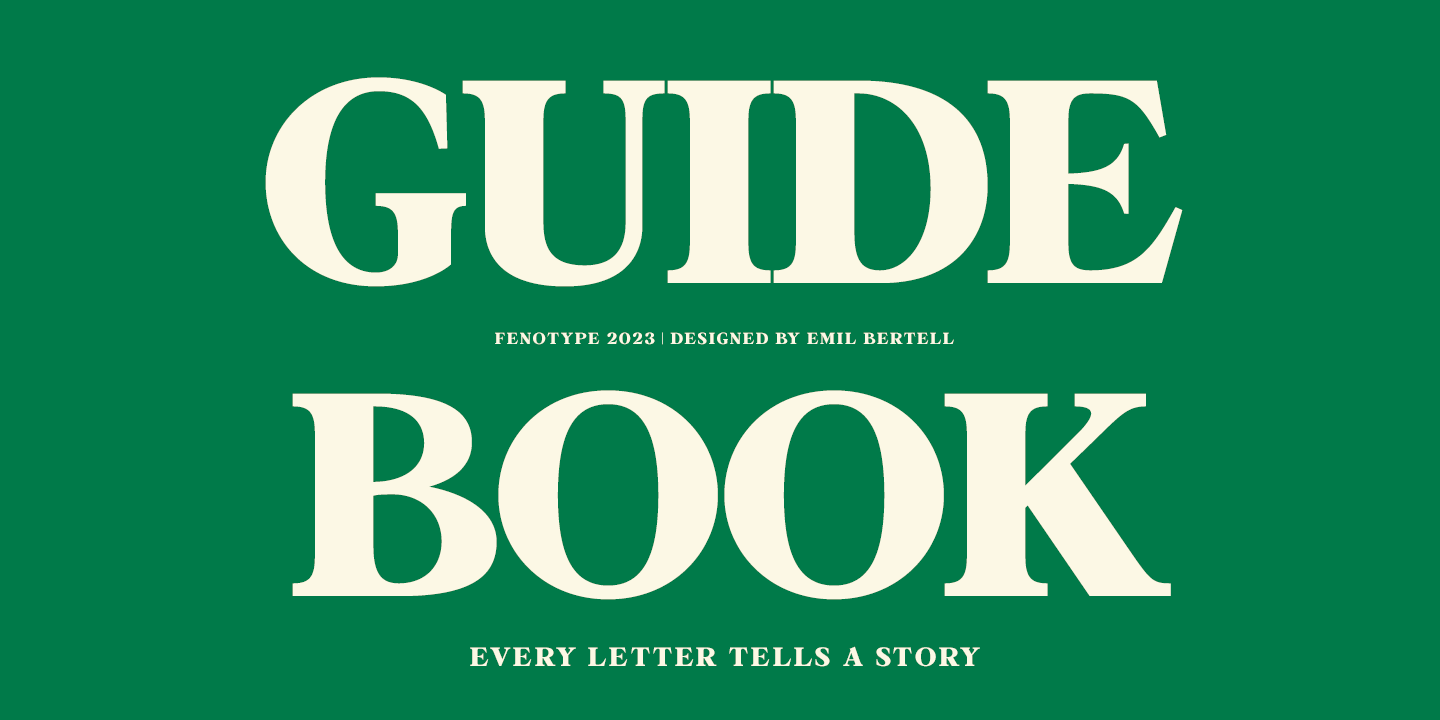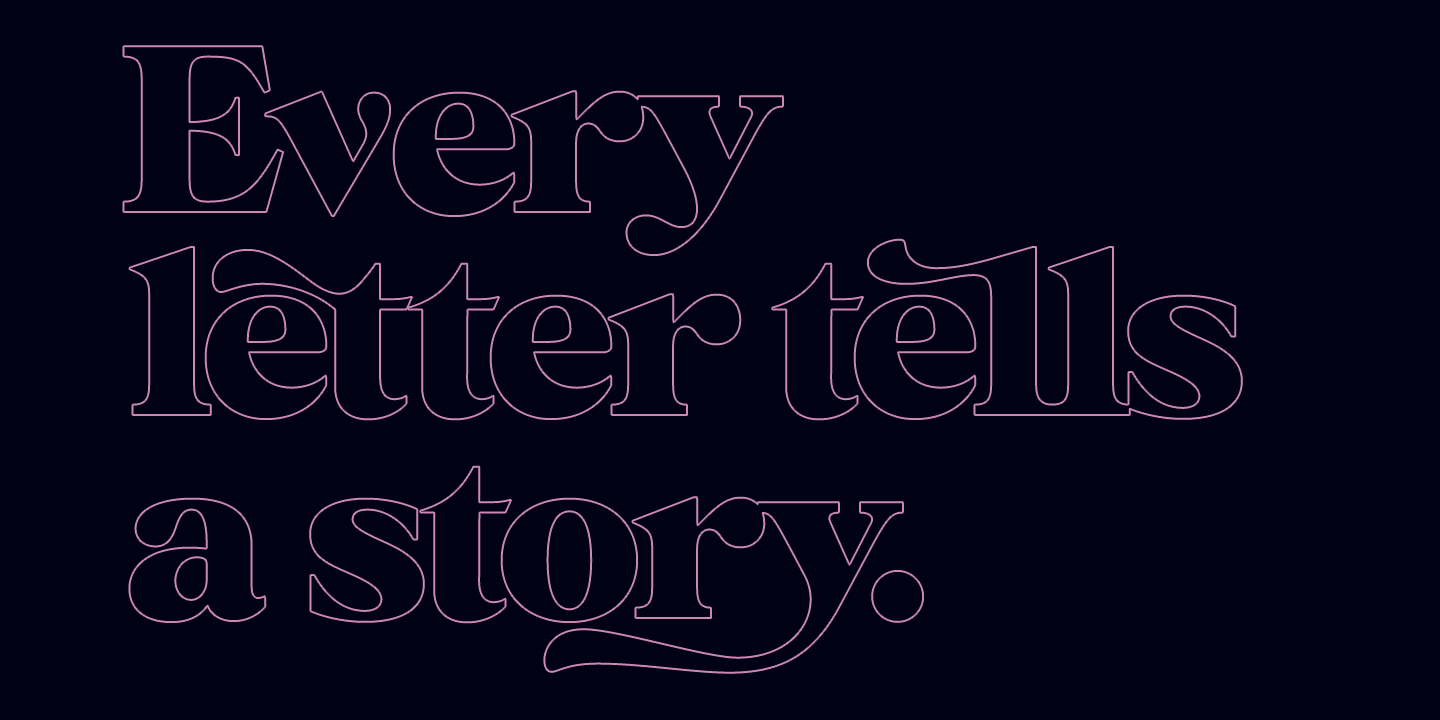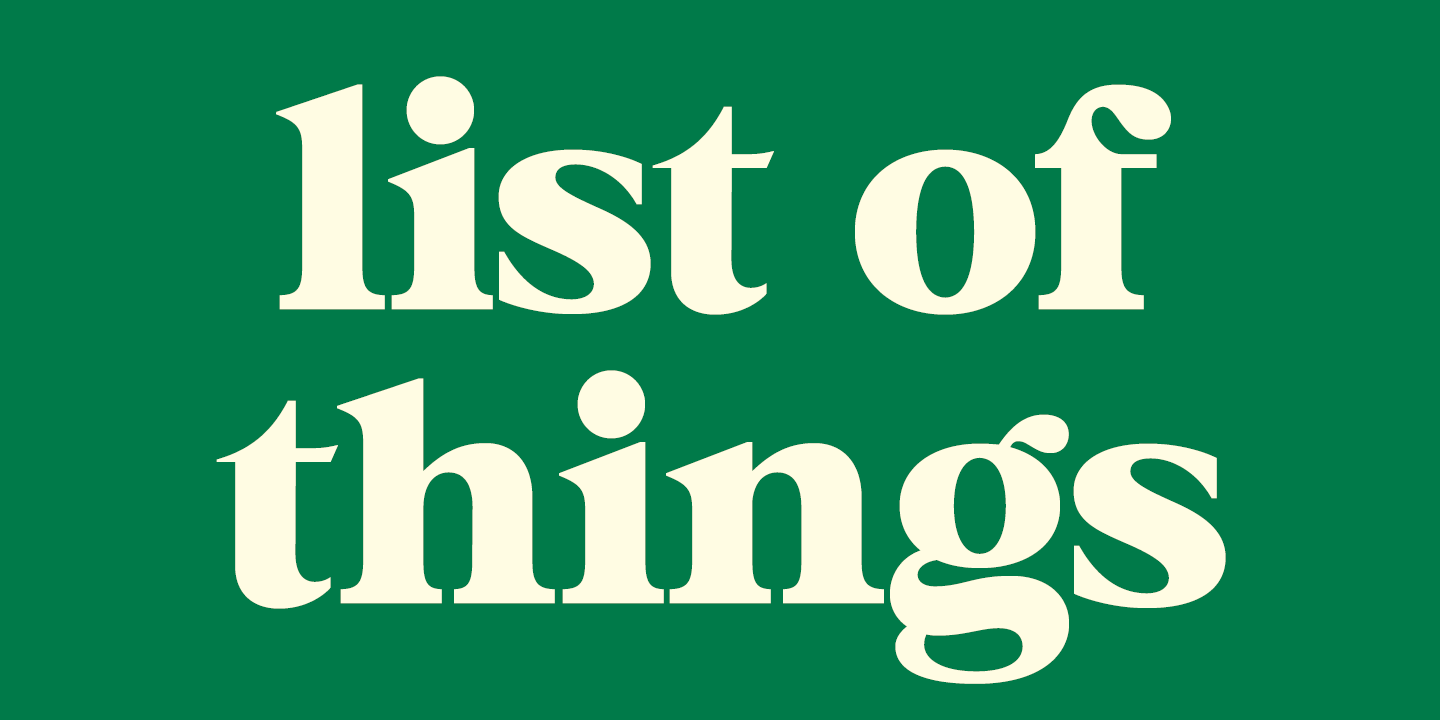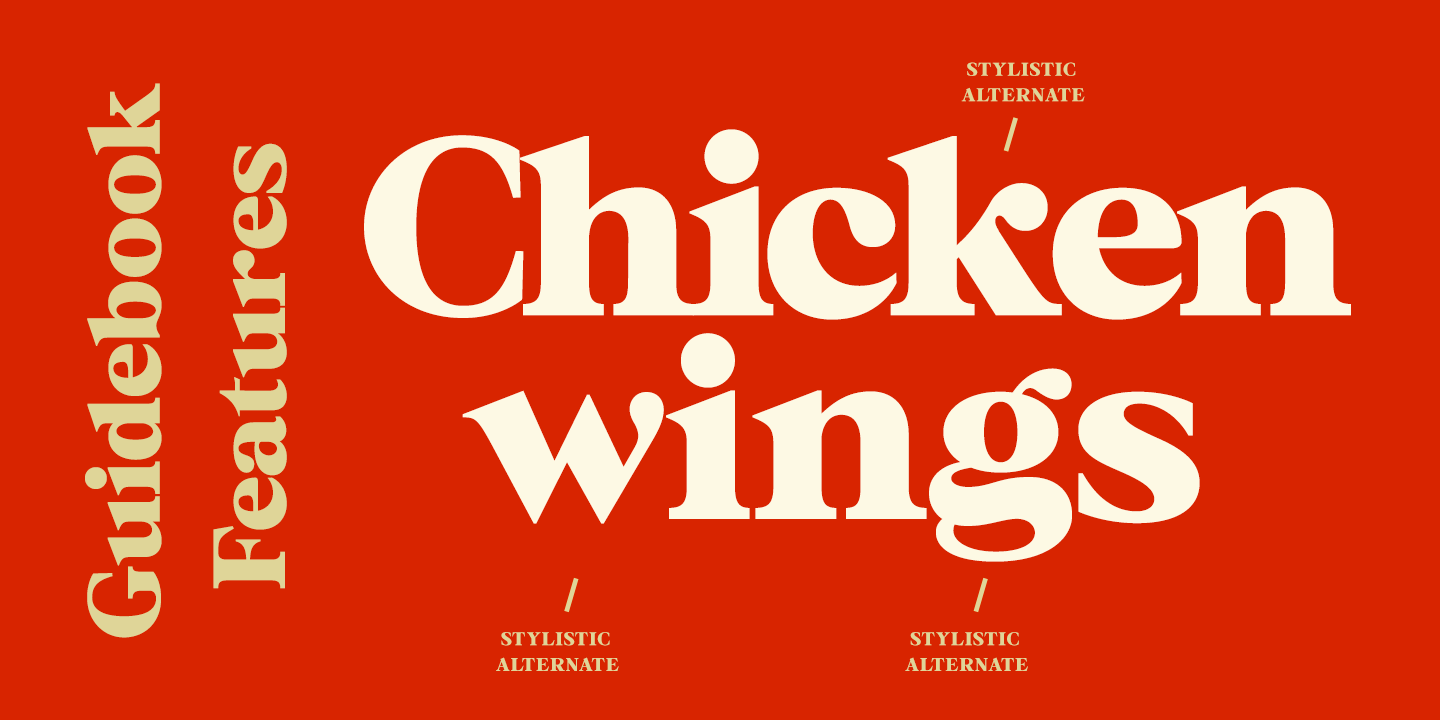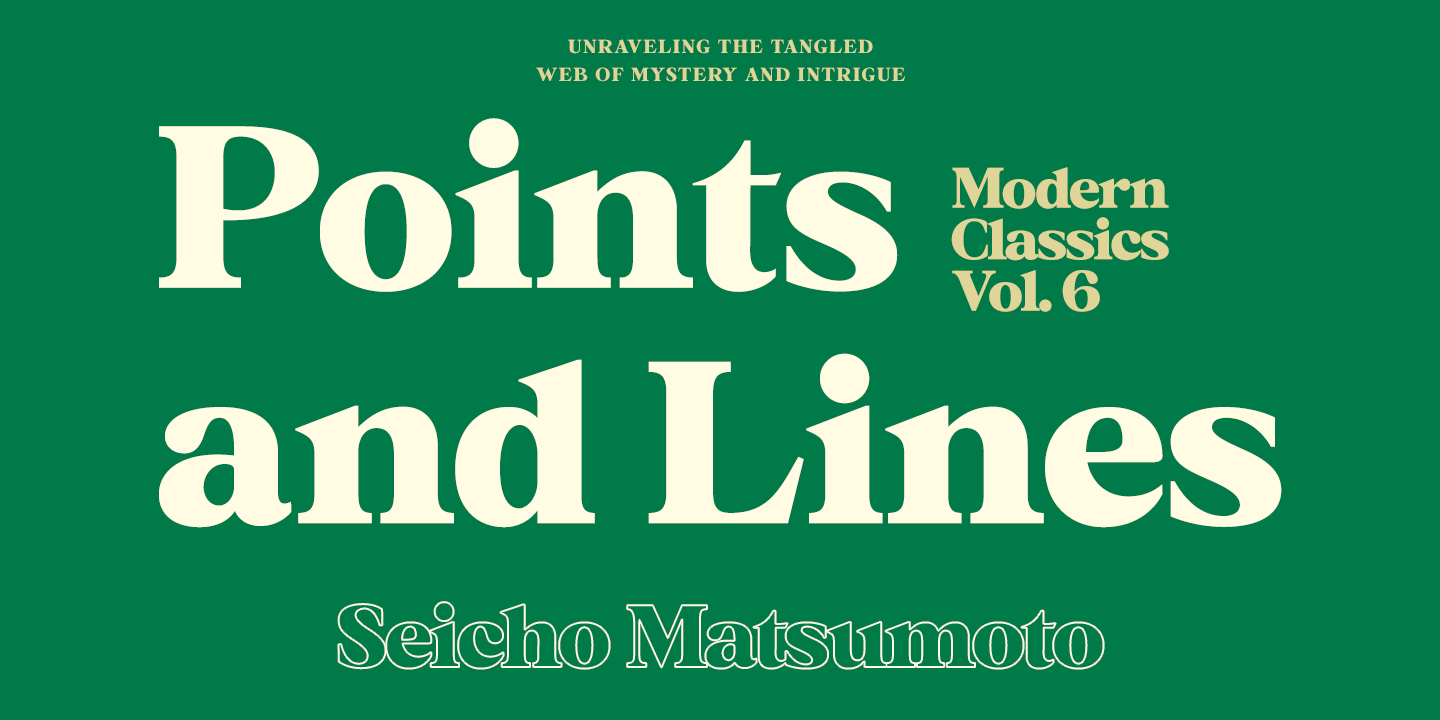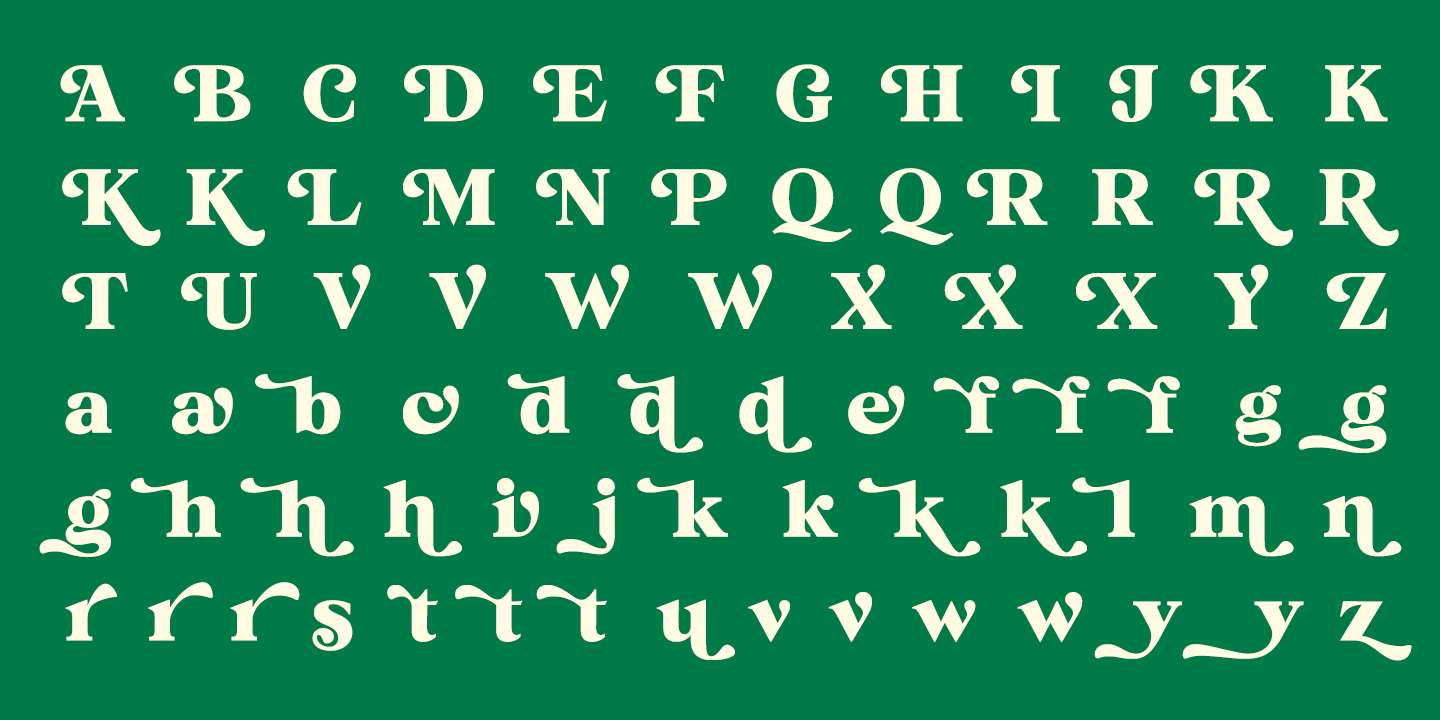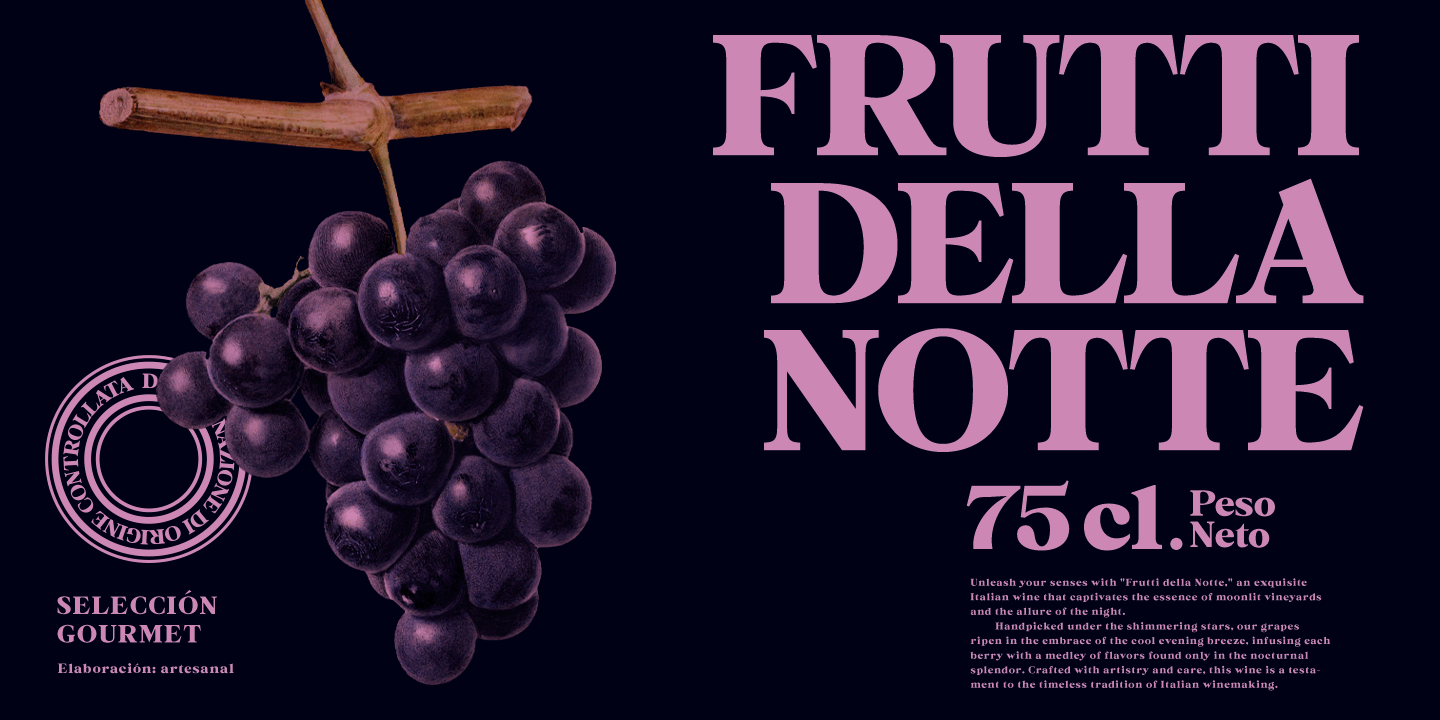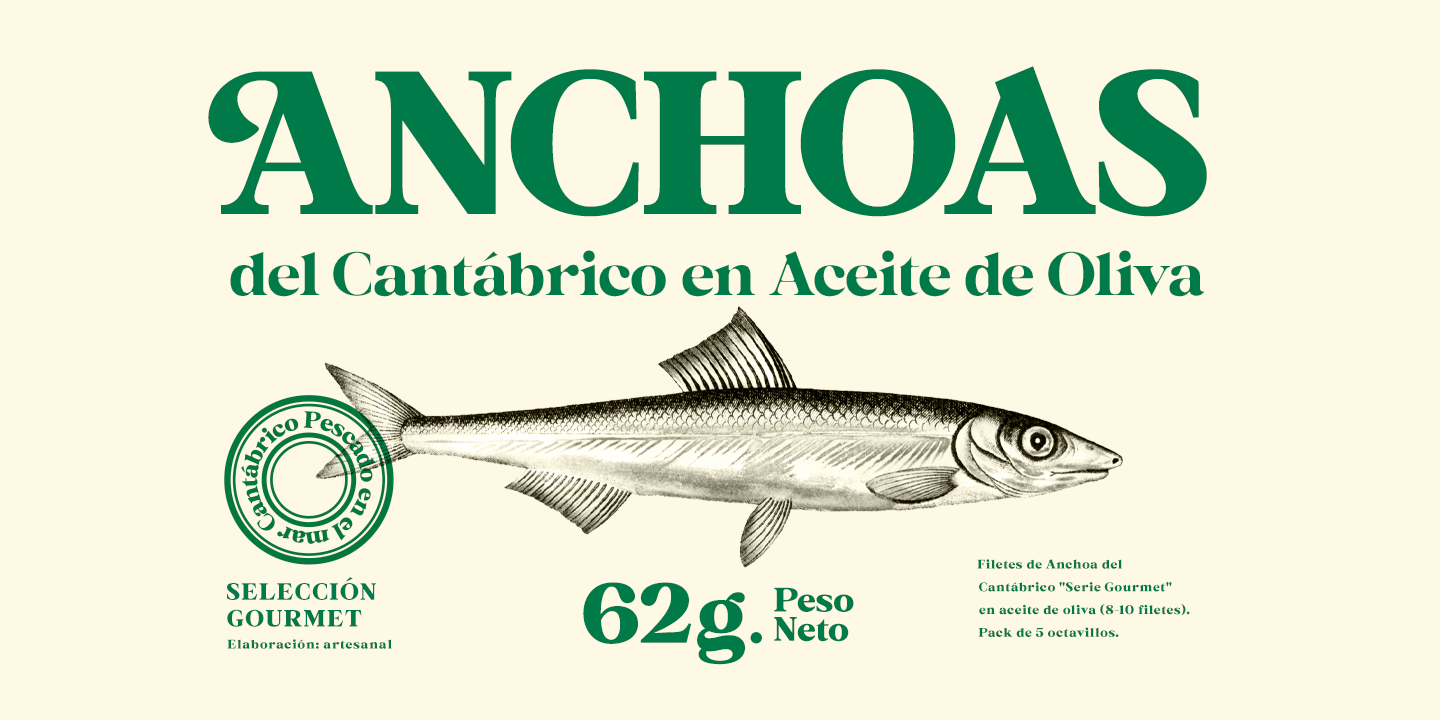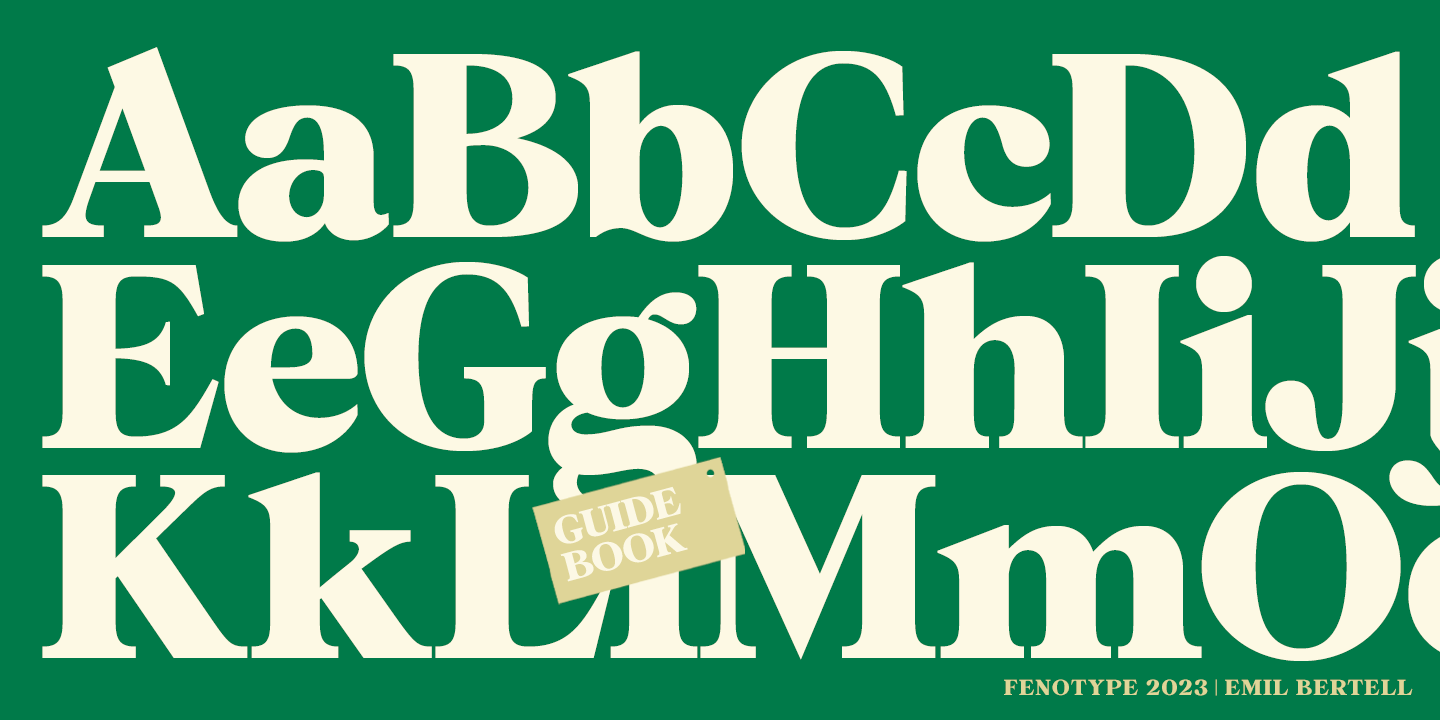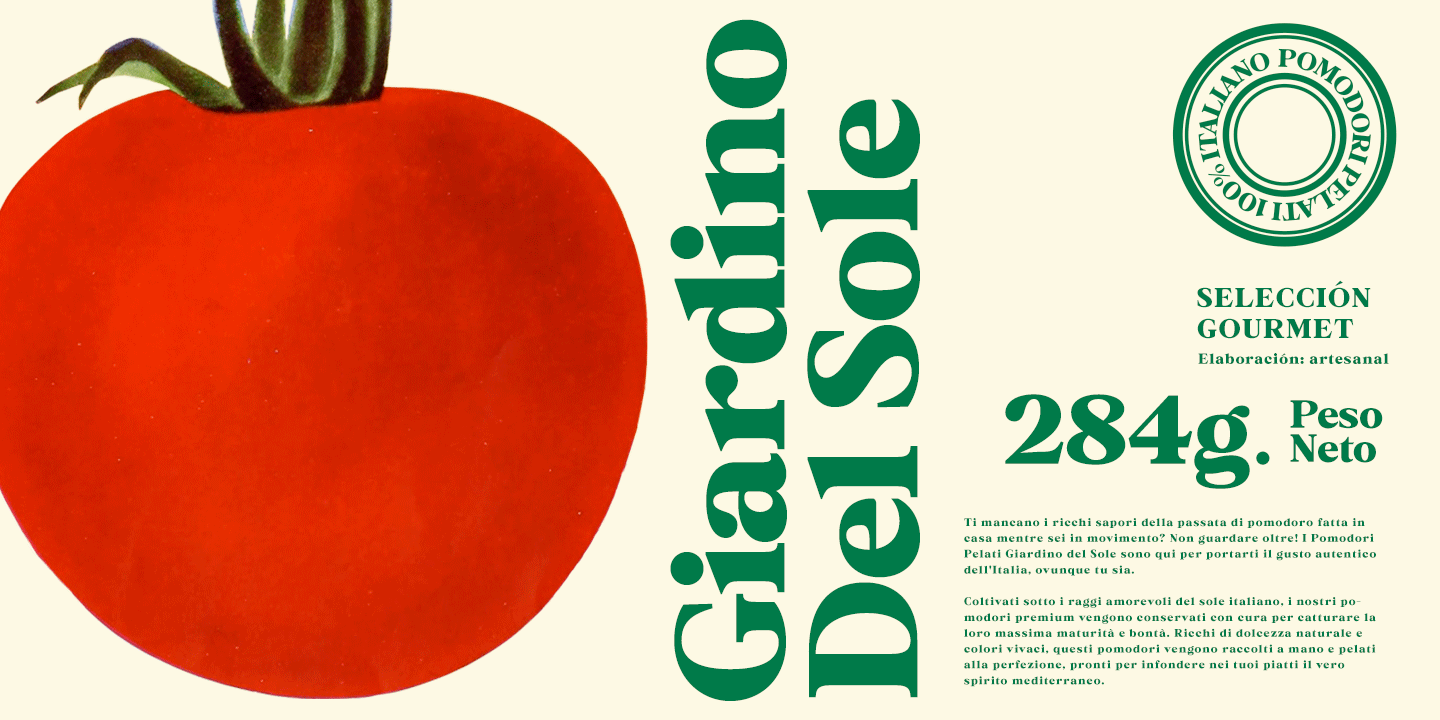
Guidebook
Guidebook is a bold vintage style serif font with a nonchalant charm and sturdy confidence. Guidebook has clean features and it expresses credibility with a reminiscence of familiar nostalgic feeling.
Guidebook is equipped with Swash, Stylistic and Titling alternates. These features can be accessed by OpenType controls or straight from the Character or Glyphs window.